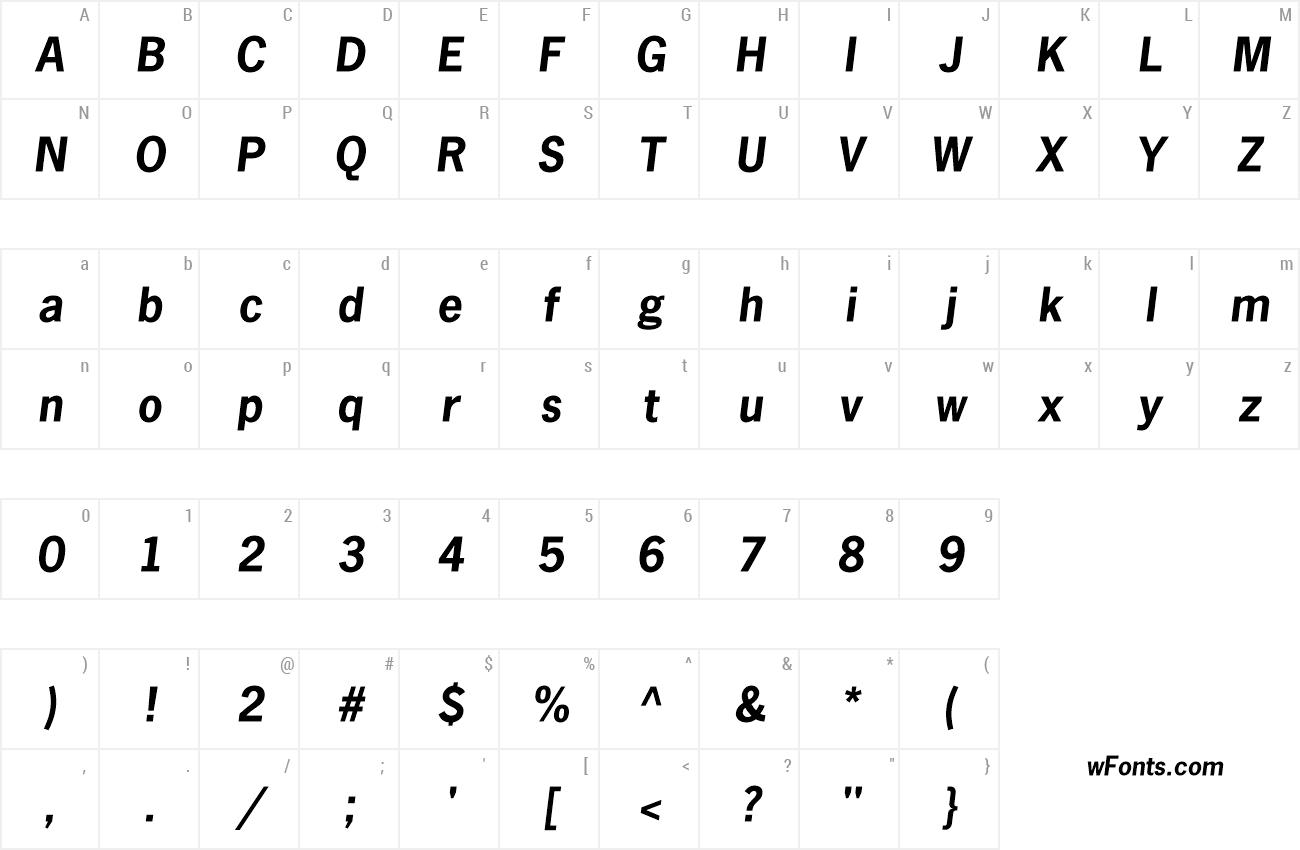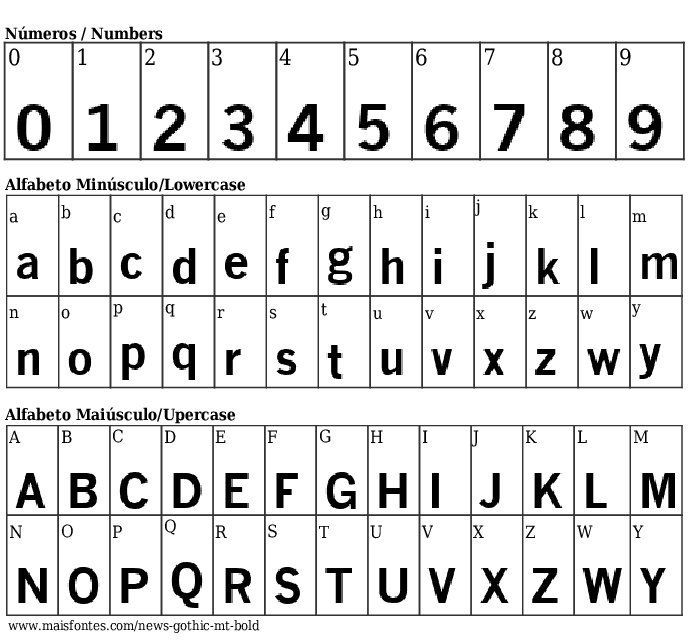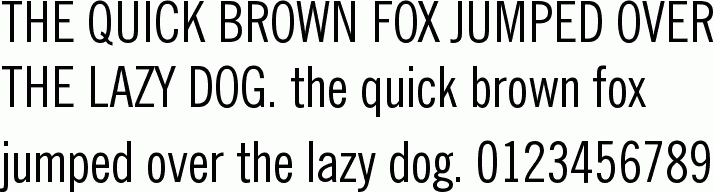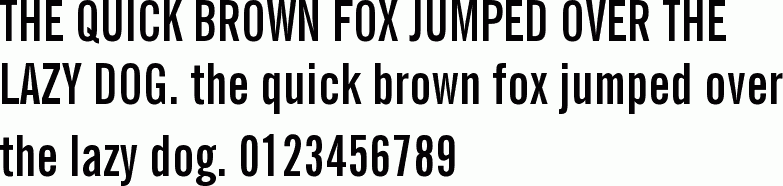
News gothic font free download. Basic, various news gothic mt font free for maс os: Explore news gothic designed by morris fuller benton at adobe fonts. A bitstream version of news gothic that was created by morris fuller benton for american typefounders and first appeared in 1908.
Download news gothic bt demiitalic font by bitstream. To install this font follow the next advice: The original design, with two condensed faces, is essentially a light version of franklin gothic.
A sans serif typeface with 4 styles, available from adobe fonts for sync and web use. In the late 1940s, after a decline in popularity because of the success of the sans serifs from europe (i. Detailed information on the news gothic font: